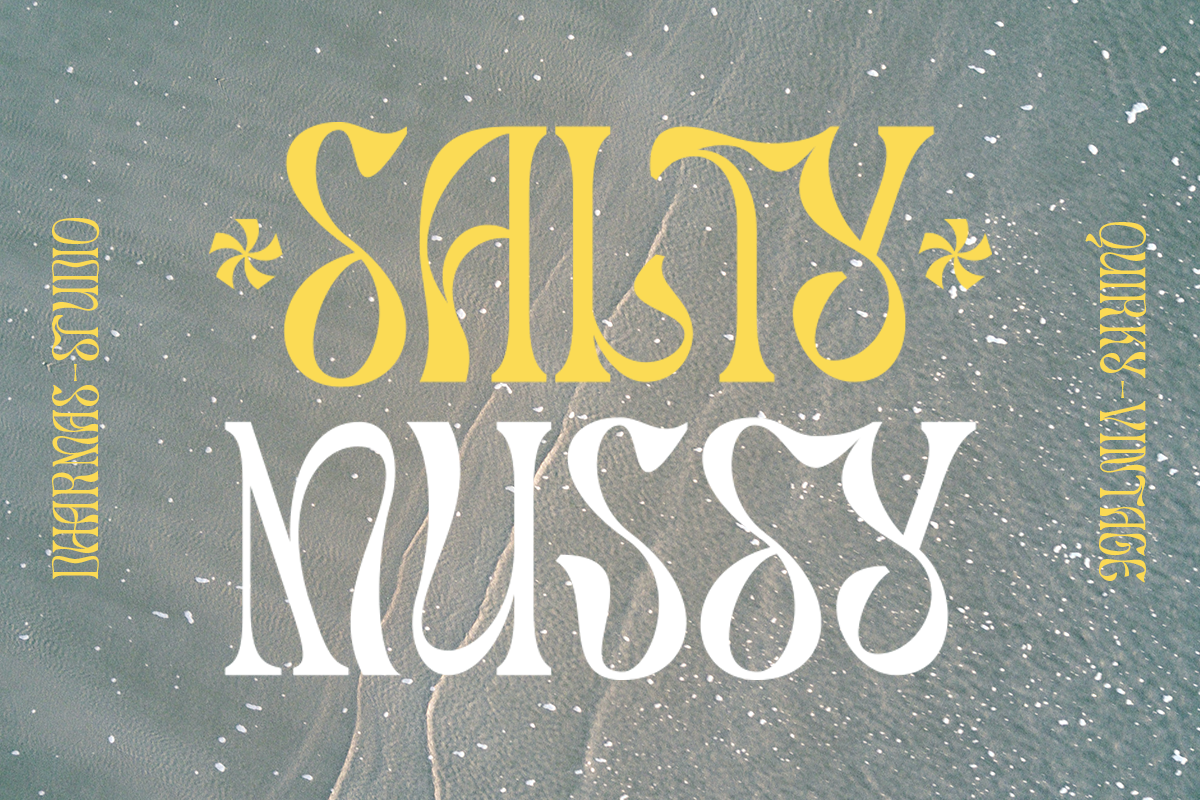
The Salty Mussy - Quirky Twisted Display Font Free Download is a fun and bold typeface designed to bring a unique, playful edge to your designs. Featuring twisted, irregular letterforms and an eccentric style, this font is perfect for creating eye-catching logos, posters, headlines, branding, and creative projects. Whether you're designing for a quirky brand, an adventurous event, or a fun campaign, Salty Mussy adds a bold and distinctive touch to your work.
Salty Mussy - Quirky Twisted Display Font Free Download is ideal for designers looking to add a fun, creative flair to their work. Perfect for bold branding, fun designs, or projects that need a standout font, this display typeface will help your designs capture attention. Download it today and bring a playful, twisted vibe to your creative projects with Salty Mussy!